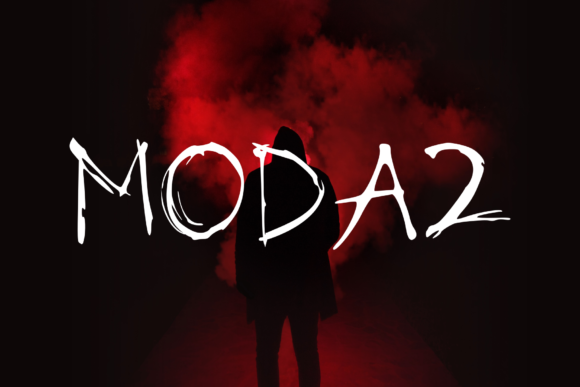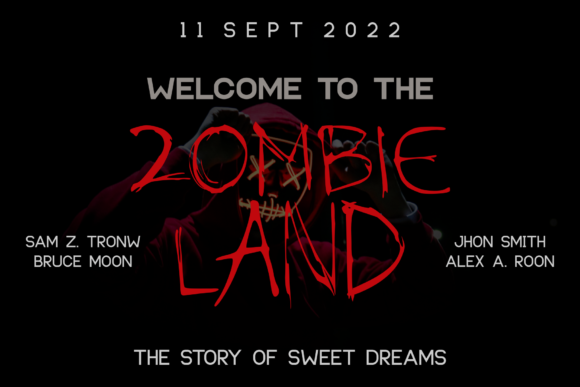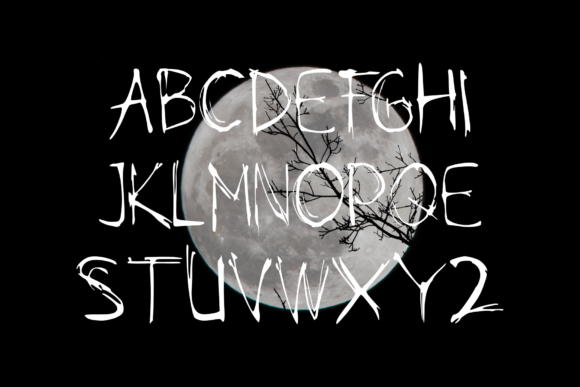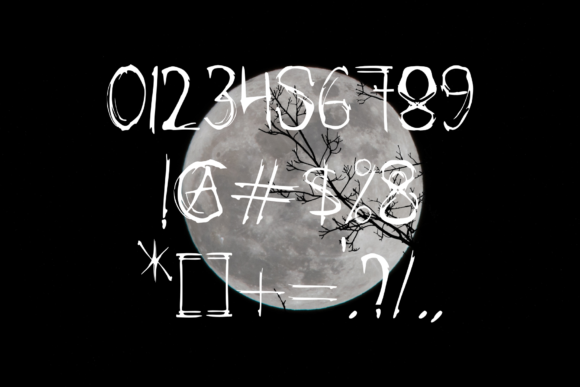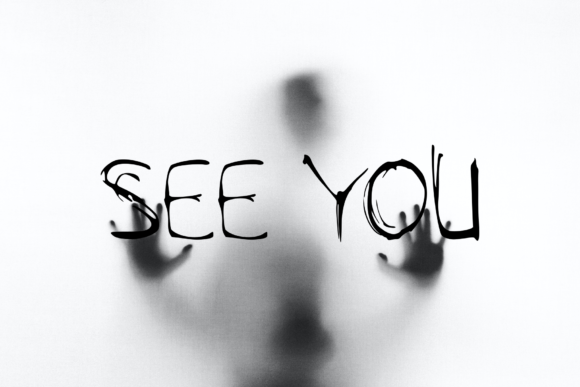
Modaz Font
About Modaz Font
The Modaz is a classic horror font. It has a scratched style which makes it perfect for adding a scary look to your designs.